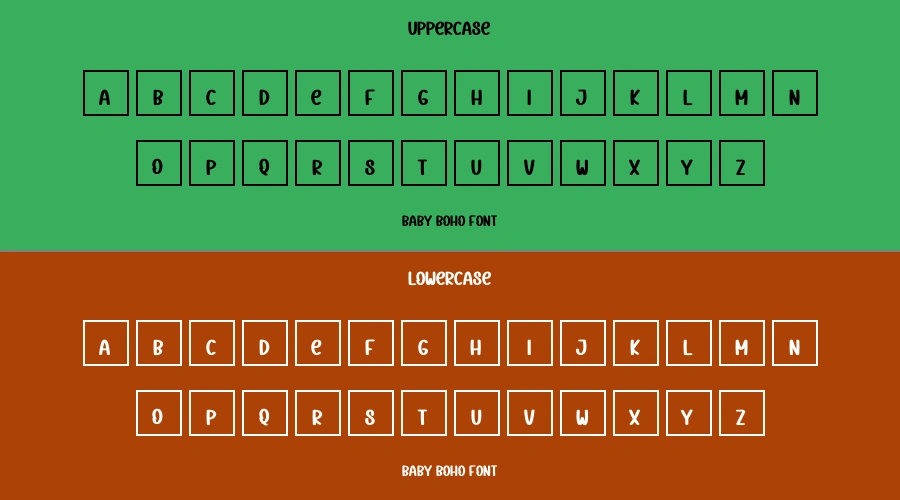
About Baby Boho Font
Baby Boho Font embodies typographic excellence through its masterful combination of angled joins and adaptability. Created for print publications, this typeface delivers exceptional distinctiveness and application safety across all applications. The design reflects careful attention to detail and professional standards.
Advanced capabilities include distinctive geometric construction and versatile inferior figures, giving designers creative control. When used in pull quotes, Baby Boho Font exhibits remarkable cross-platform compatibility. The harmonious balance between ear formation and artistic value sets this typeface apart.